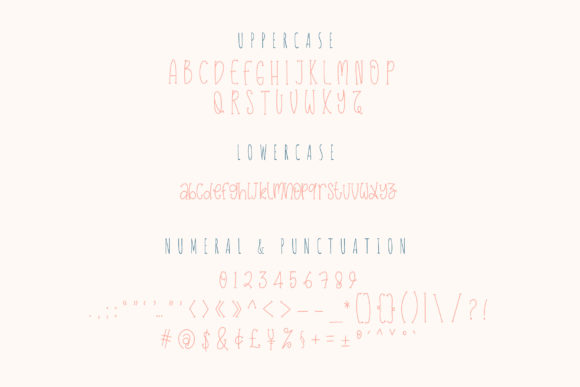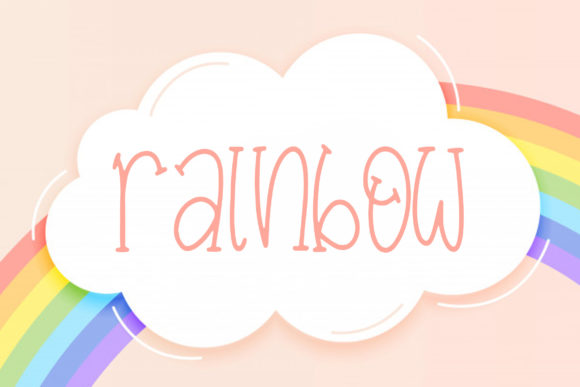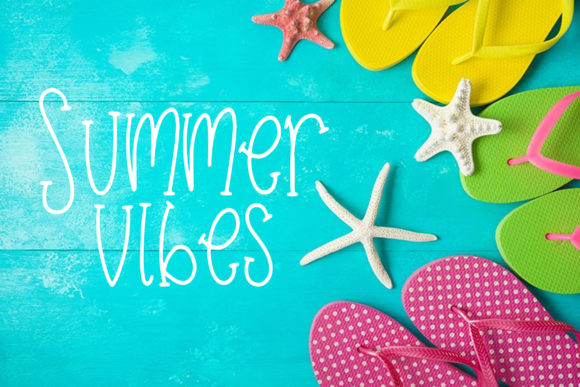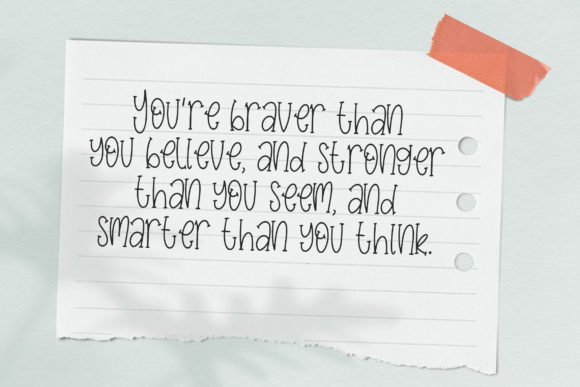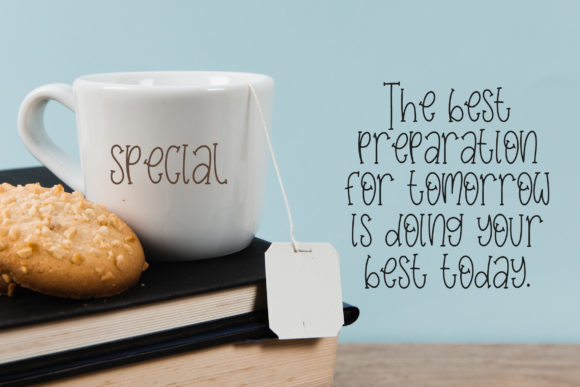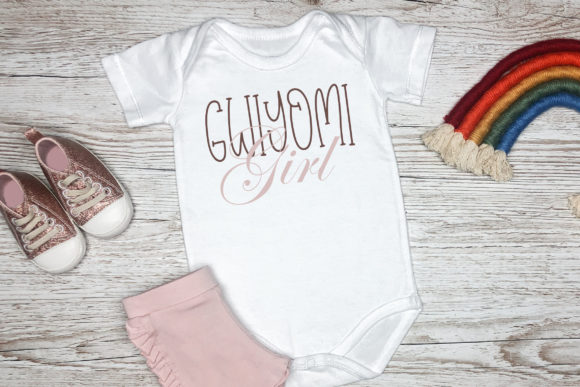
Introduction to Gwiyomi Font
Have you ever stared at a blank canvas, feeling the weight of creativity’s expectation, only to have a spark of inspiration strike when you least expect it? For designers, these moments are what drive us to push the boundaries of our craft. And what better way to ignite that spark than with the perfect font?
Enter the Gwiyomi Font, a delightful and whimsical handwritten typeface that’s sure to bring a smile to your face. Its sweet and playful nature makes it the perfect design resource for any creative project, from product packaging to business cards and beyond.
With its high-quality design and transparent background, the Gwiyomi Font is a free download waiting to be unleashed on your next project. Whether you’re a seasoned designer or just starting out, this versatile font is sure to elevate your work and leave a lasting impression.
Key Features of Gwiyomi Font
- The font features a transparent background, making it ideal for use on images or videos with complex backgrounds.
- Gwiyomi Font is highly versatile, suitable for a wide range of creative projects, from logos and branding to digital art and graphic design.
- This font is available in multiple sizes, with a resolution of up to 300 DPI, ensuring crisp and clear rendering on various devices and screens.
- The unique, hand-drawn style of the Gwiyomi Font adds a touch of personality and whimsy to any design project, making it a valuable design resource for creative professionals.
- The font’s high-quality design and transparent background make it an excellent choice for designers looking for a high-quality, free download for their creative projects.
Honest Review: Gwiyomi Font
I recently stumbled upon the Gwiyomi Font, and I must say it’s a delightful addition to any designer’s toolkit. This free download is perfect for creative projects that require a touch of whimsy and playfulness.
What works well is the font’s unique, hand-drawn style, which adds a personal touch to any design. The transparent background makes it easy to use as a overlay or a decorative element in your projects. The font is also highly customizable, making it a great resource for designers who like to experiment with different looks.
- ✨ Unique, hand-drawn style
- ✨ Transparent background
- ✨ Highly customizable
However, there are a few limitations to keep in mind. The font may not be suitable for all types of projects, particularly those that require a more professional or formal tone. Additionally, the font’s irregularities may make it difficult to read in certain contexts.
Overall, I think the Gwiyomi Font is a great design resource for designers who are looking to add some personality to their projects. While it may not be perfect for every situation, it’s a fun and creative tool that’s definitely worth exploring.
Tips for Getting the Most Out of Gwiyomi Font
Use the Gwiyomi Font on a transparent background to create a unique design element. Combine it with other design resources to create a high-quality, eye-catching graphic. Download the font for free to experiment with different designs and projects.
The Gwiyomi Font is ideal for creative projects, such as social media graphics, blog posts, and presentations. Its unique design makes it a great choice for adding a touch of personality to your design. Use it to create a consistent brand identity or to add a creative twist to your design.